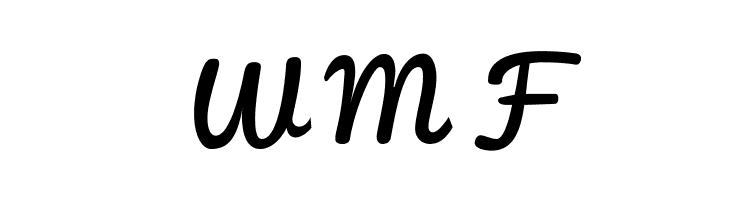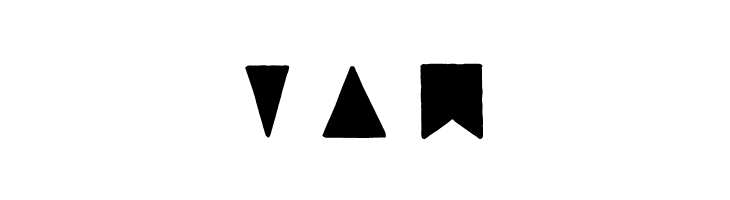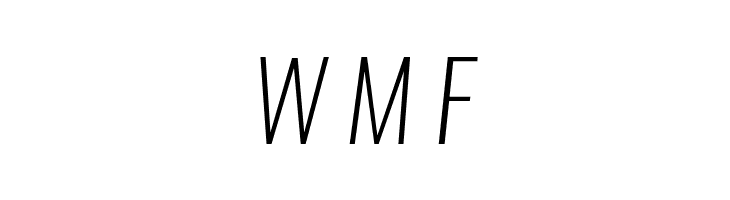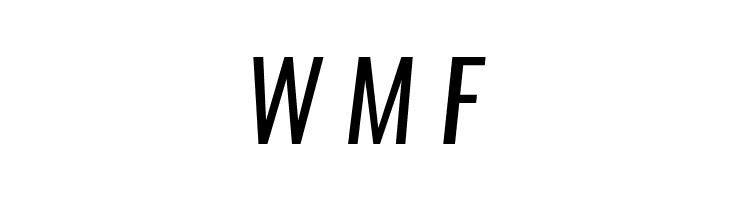
A modern, clean sans-serif font with uniform stroke width and excellent readability.
An elegant script font with flowing, cursive strokes and a sophisticated style.
A playful decorative dingbat font with geometric shapes, banners, arrows, and dividers.
A bold, high-contrast font with a modern and vintage blend.
A bold, playful, hand-drawn font with a whimsical charm.
A sleek, modern, extra-light italic font with a narrow, streamlined design.
A modern, italicized sans-serif font with a clean and slightly condensed style.
A sleek, modern font with a subtle italic slant and consistent stroke weight.
A modern, slightly condensed sans-serif font with an italic slant.